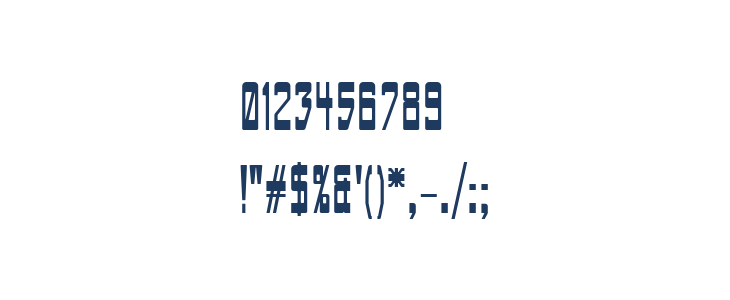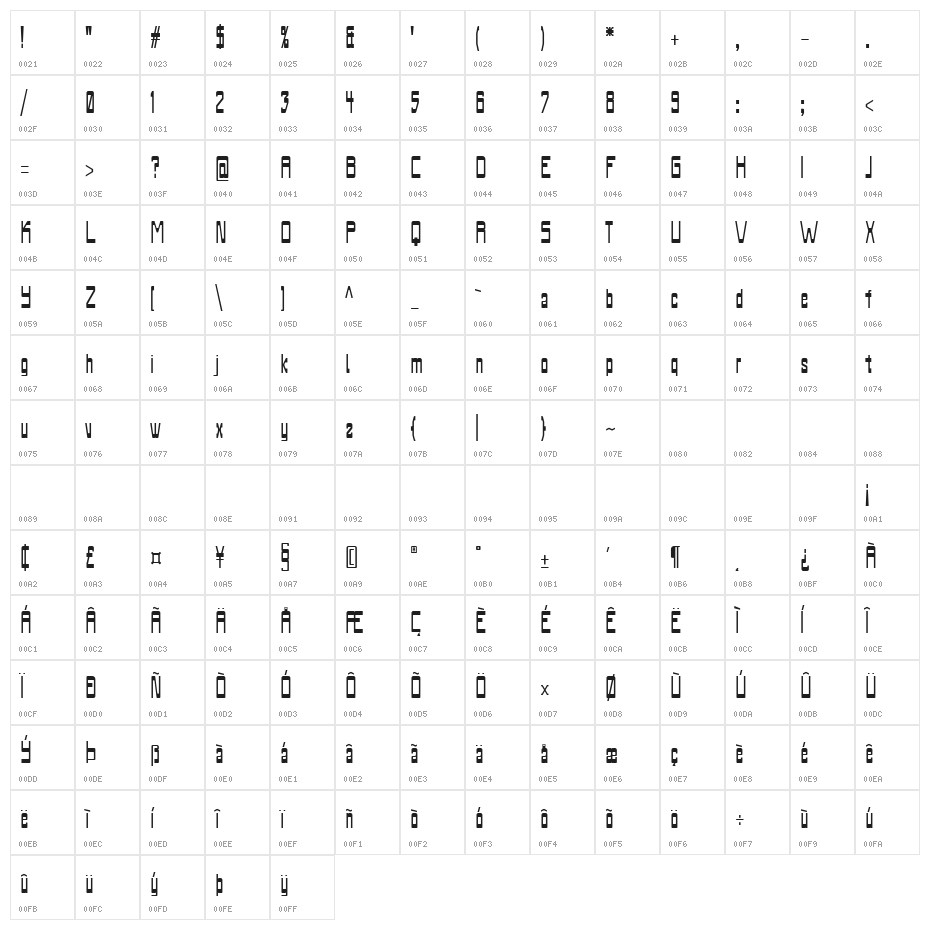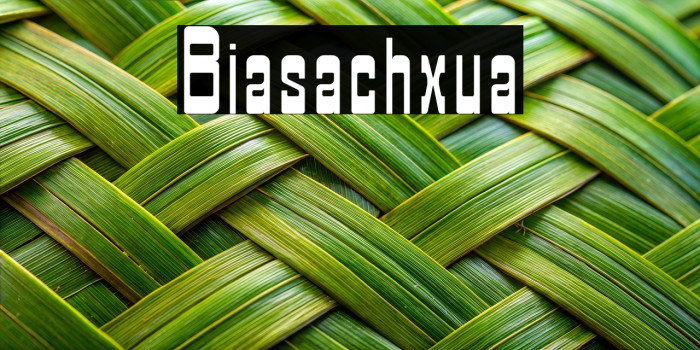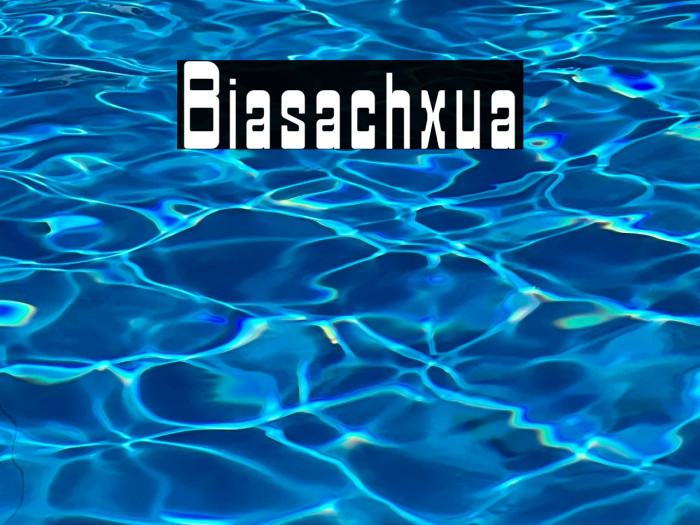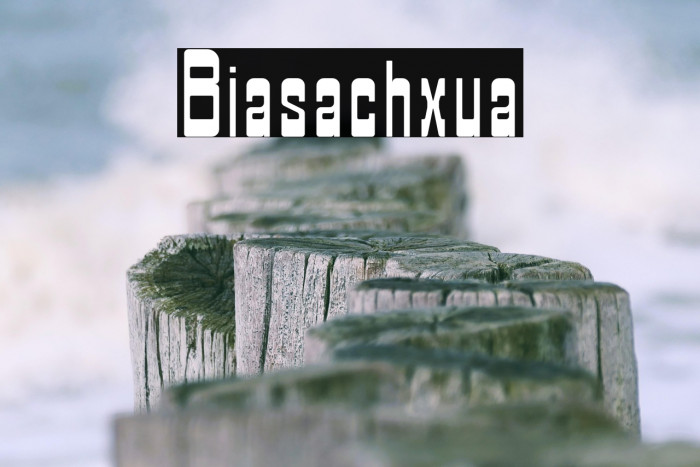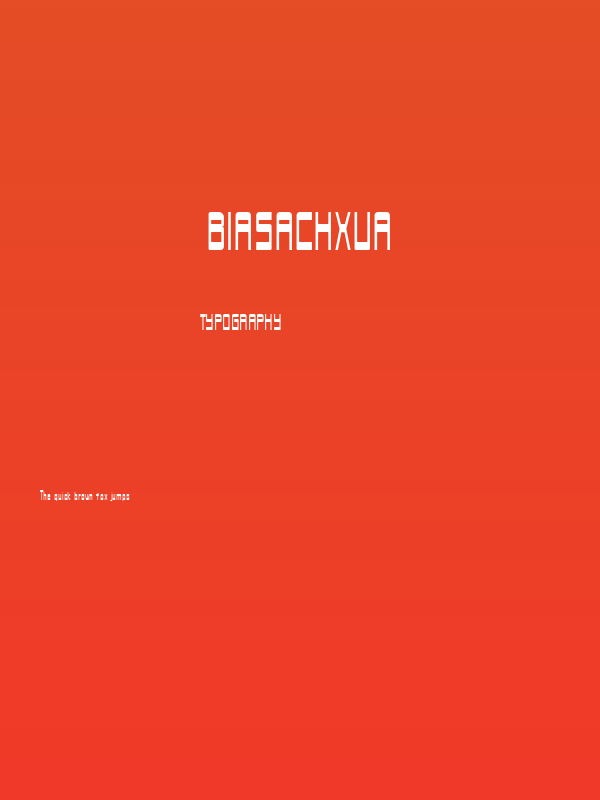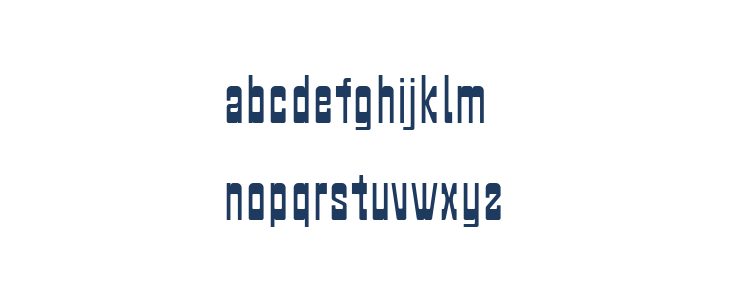
Biasachxua Font
Biasachxua Description
This font features a bold, geometric design with a modern and futuristic aesthetic. The uppercase letters are tall and narrow, with consistent stroke widths that give a uniform appearance. The lowercase letters maintain the geometric style, offering a cohesive look across different cases. The numerals are clear and legible, matching the overall style of the alphabet. Special characters are designed with the same geometric precision, ensuring they integrate seamlessly with the letters and numbers. The font's boldness and structured form make it suitable for impactful designs.